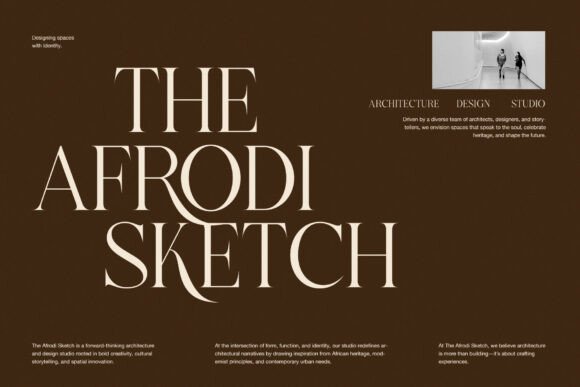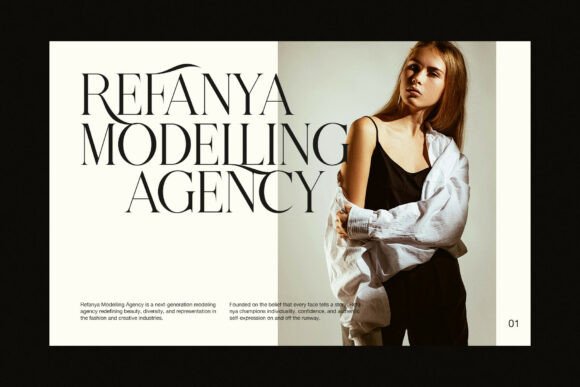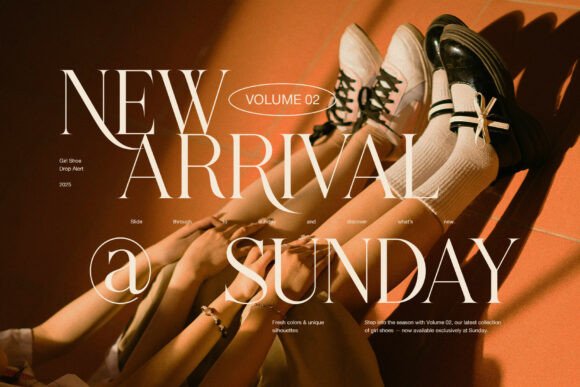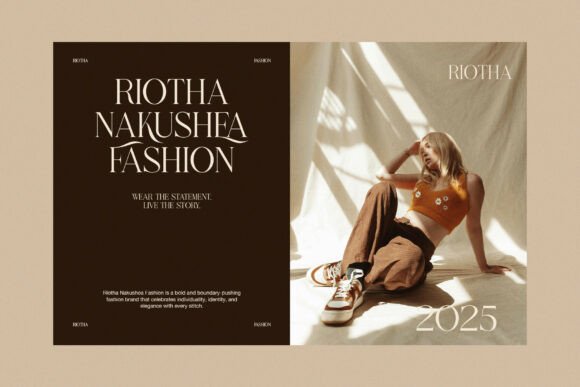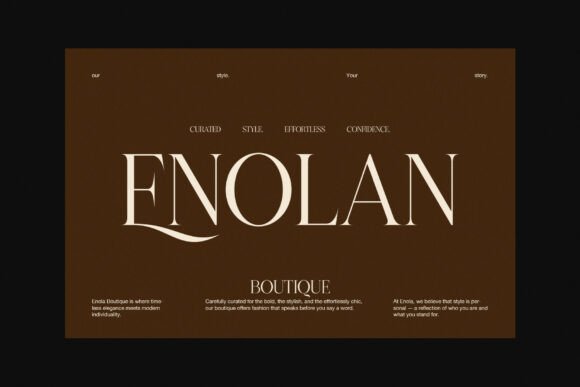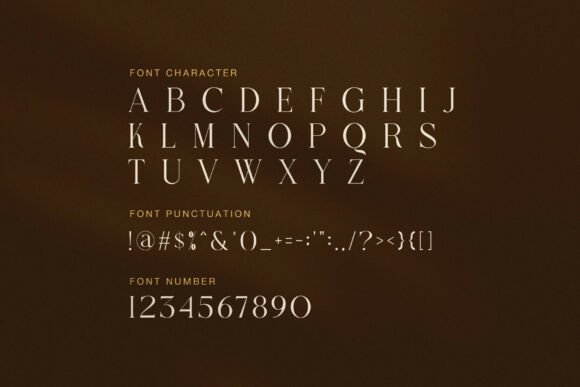
Introduction to Mefons Font
Mefons Elegant Serif Font is a luxurious and refined typeface designed to capture attention through graceful motion and timeless detail.
With its sweeping ligatures, soft curves, and striking contrast, this font brings sophistication to every project Because of its stylish form, Mefons is ideal for designers who want to blend modern beauty with classic charm.